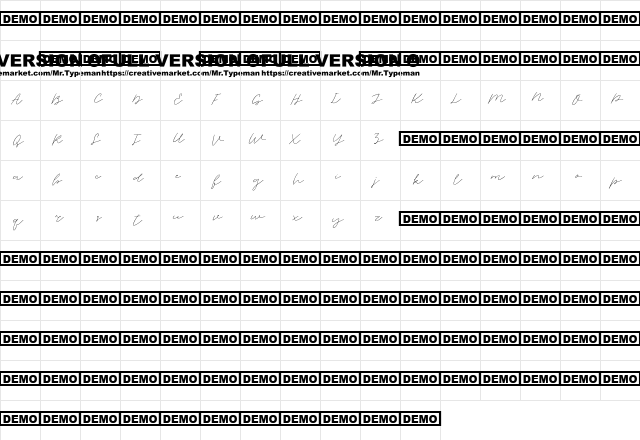
Albiol Regular
| Foundry | Mr.Typeman |
| Designer | Hleb Zhyhunou |
Design Context for Albiol Typeface
Albiol is a composed and adaptable typeface that performs quietly and consistently across a wide range of design contexts.